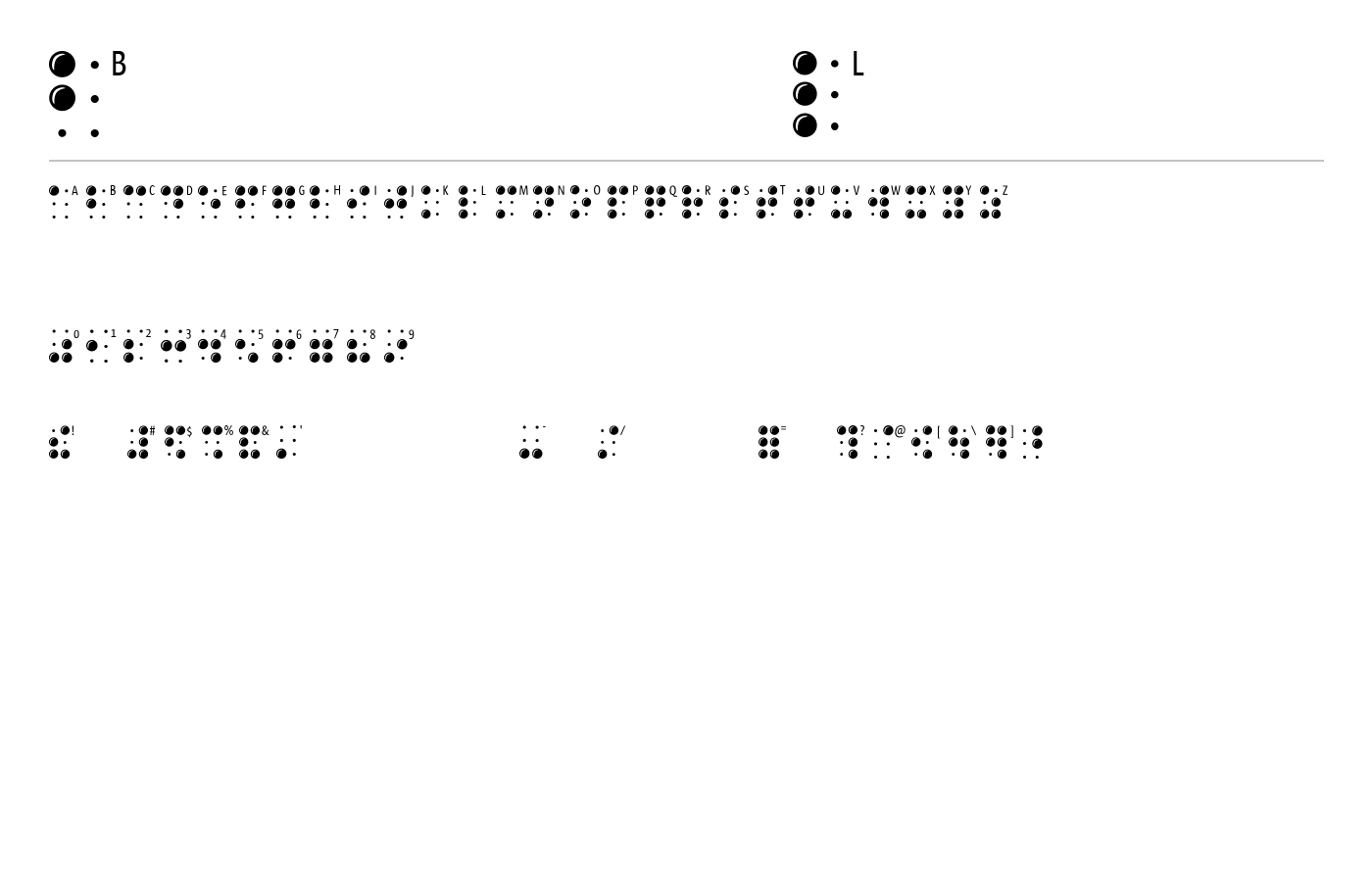
BrailleLatin is a unique, symbolic font that visually represents traditional Latin characters through a bold, geometric arrangement of raised dot patterns inspired by braille. It has a playful and tactile feel, combining accessibility design elements with a modern, minimalist style, making it ideal for creative branding, educational materials, and inclusive design projects that seek to emphasize communication and inclusivity. This font stands out in headlines, posters, or any context where a distinct and thoughtful impression is desired.
BrailleLatin Font